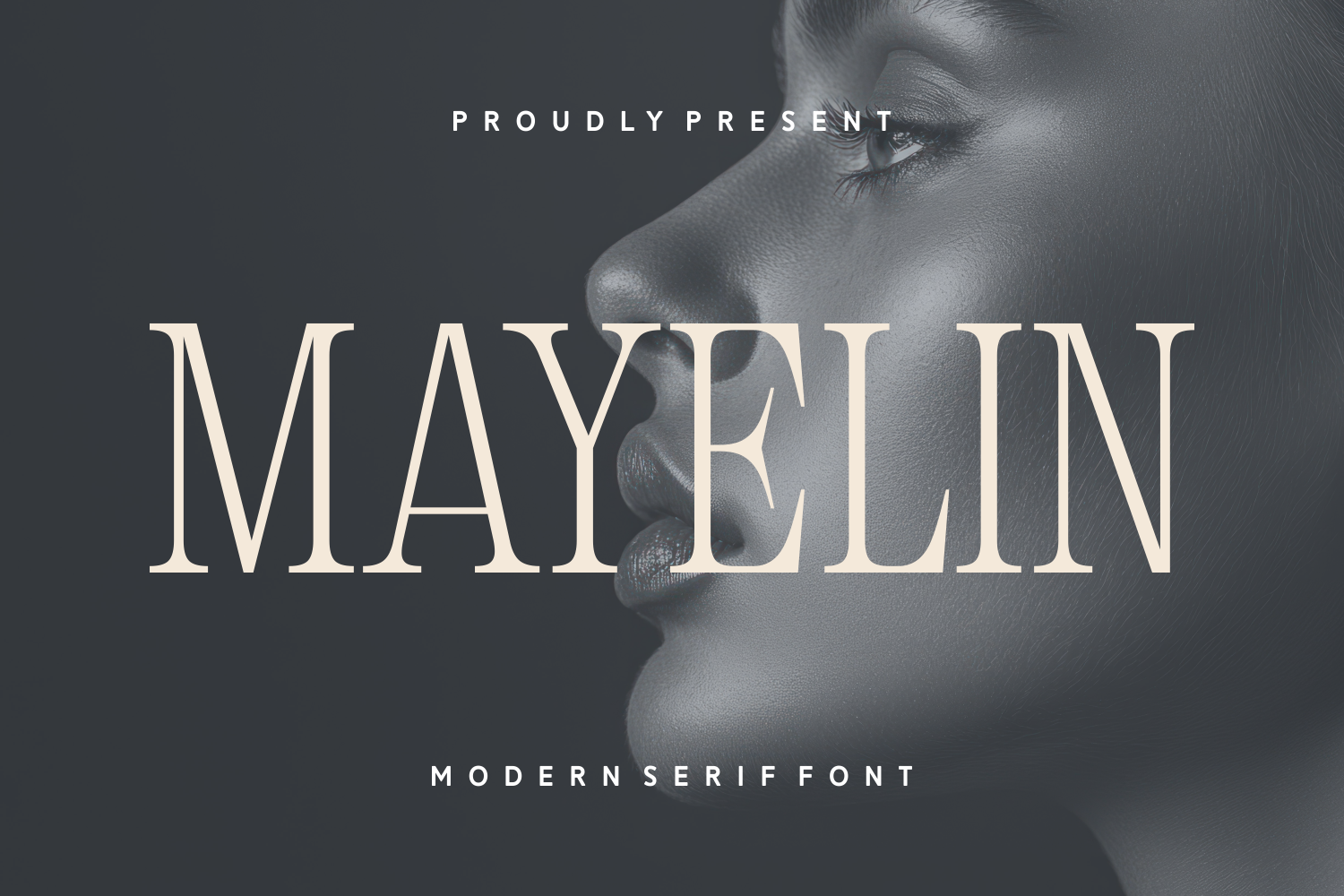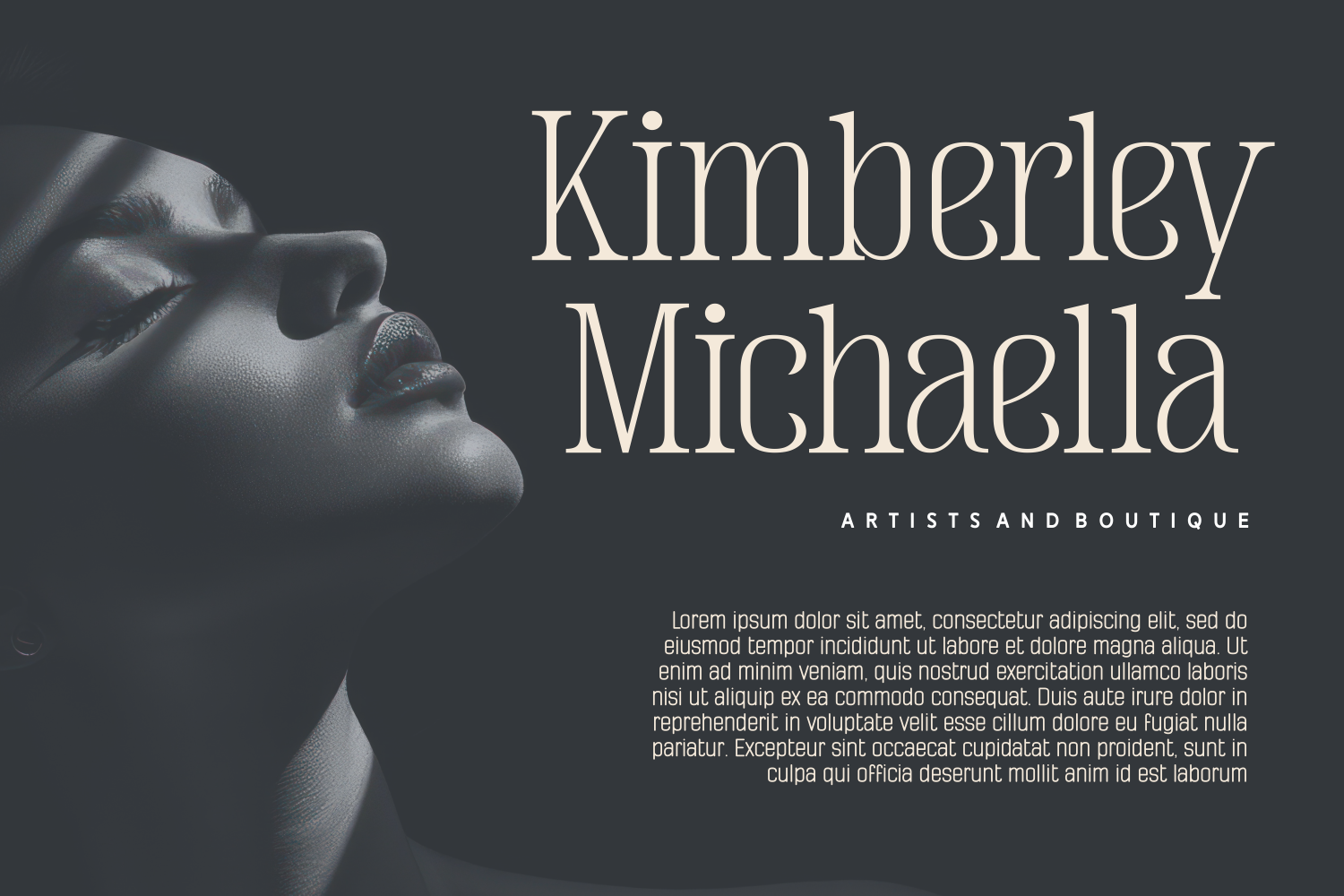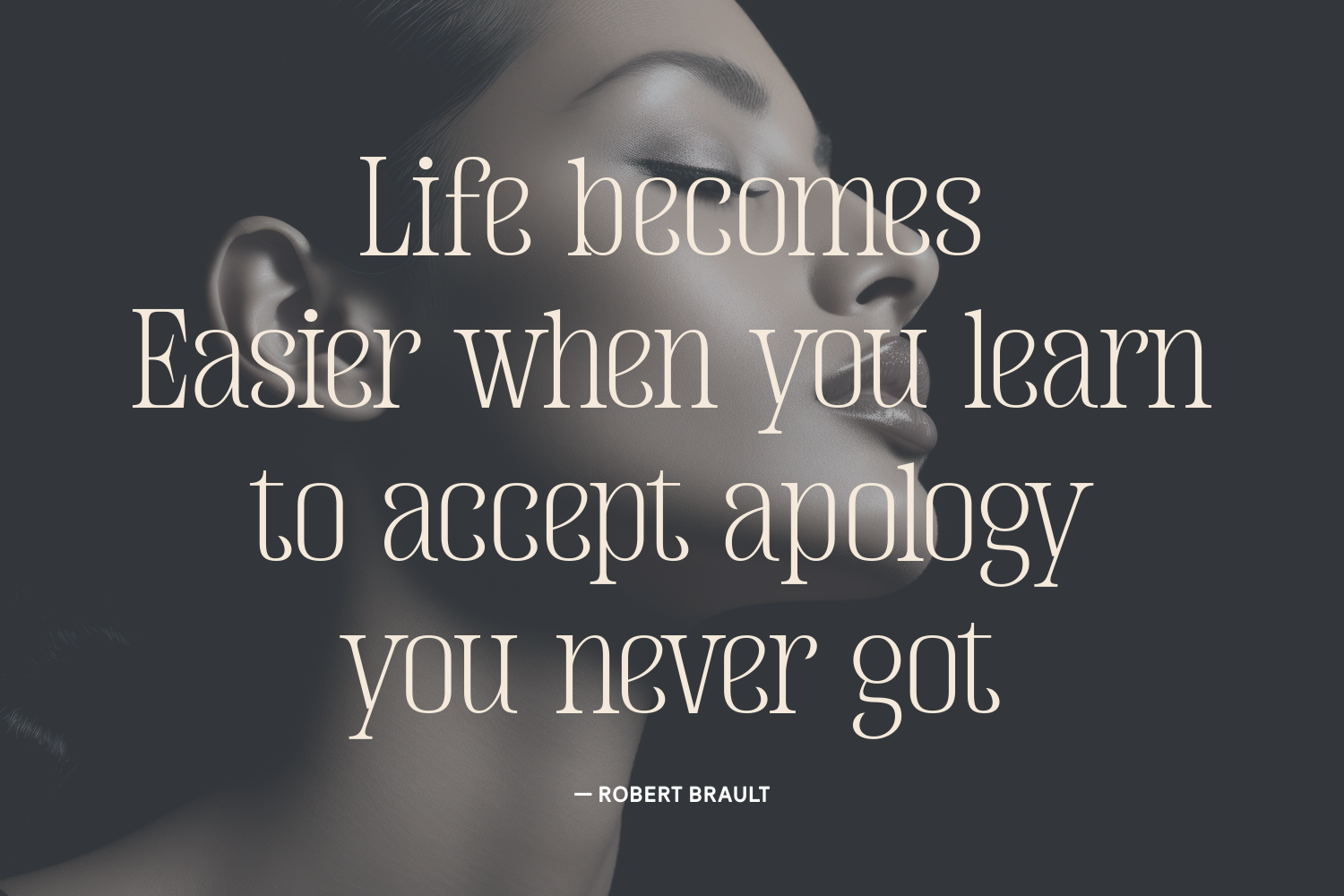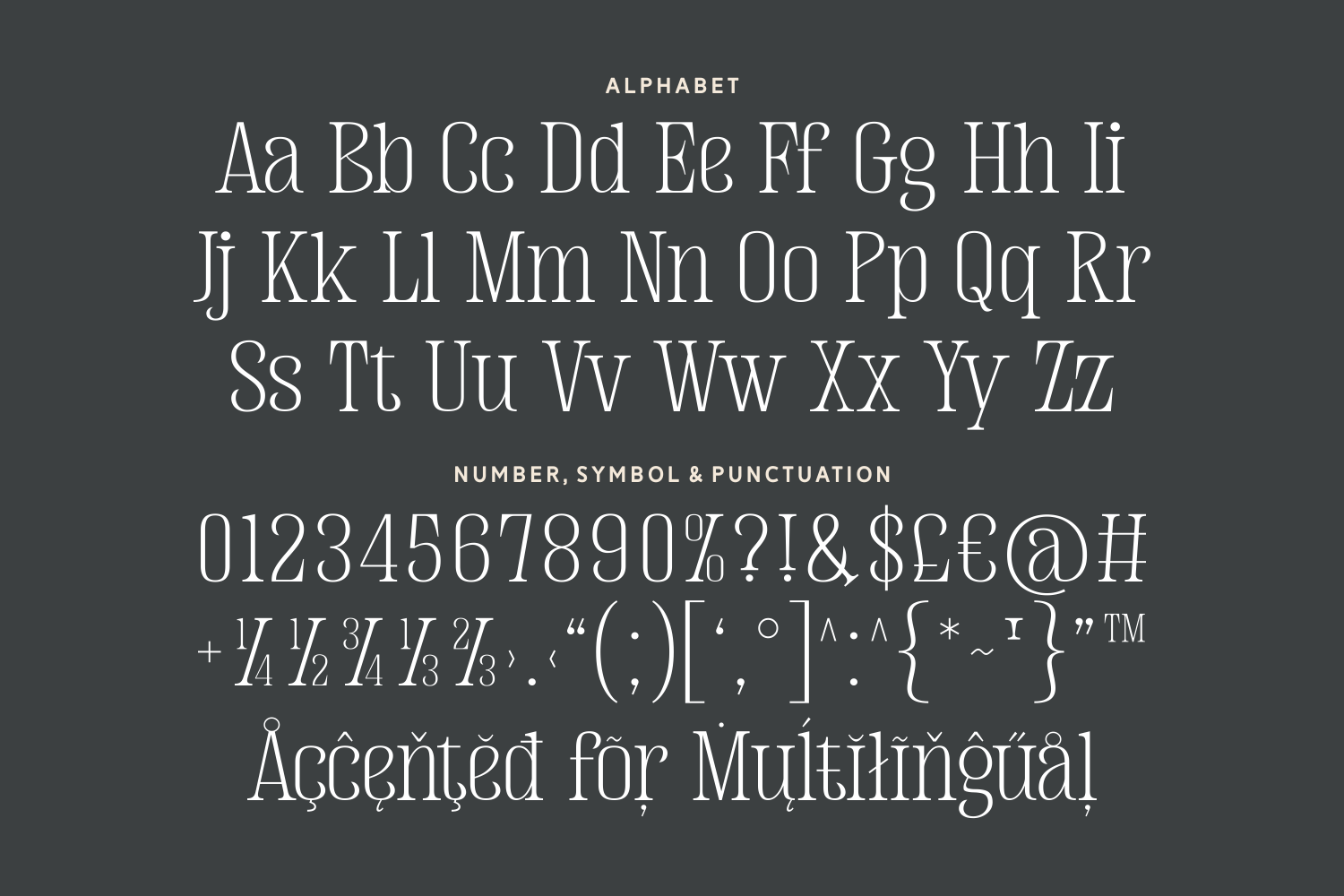
Mayelin is a luxurious modern serif font designed with poise and precision. With a clean structure and graceful serifs, Mayelin projects both confidence and sophistication. Its refined character set includes multilingual support and full punctuation, ensuring your message is always as polished as your design.